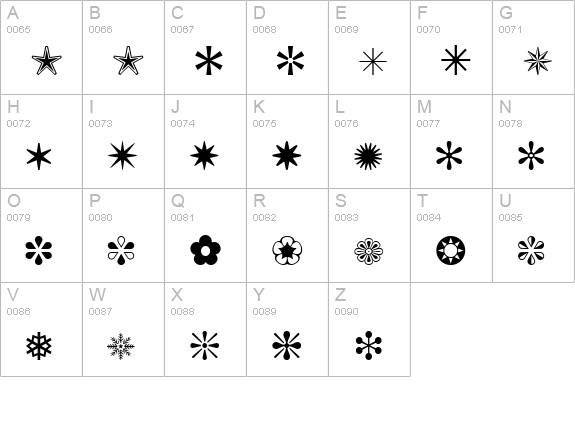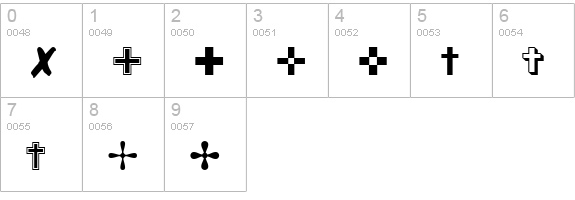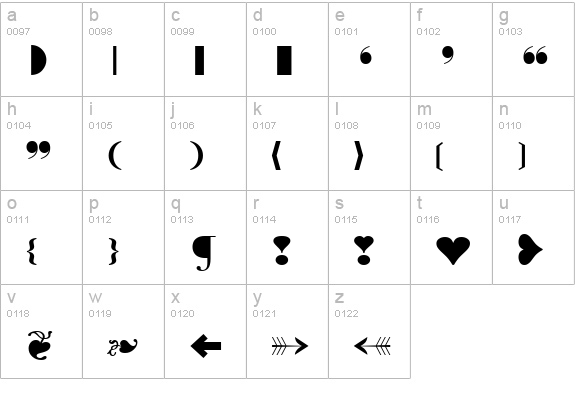
Iconic Symbols Ext Font Details
Iconic Symbols Ext font is a stunning and versatile typeface that is sure to catch the eye and elevate any design project. With its extensive collection of iconic symbols, this font allows you to effortlessly communicate ideas and concepts in a visually appealing way. Whether you are creating a logo, designing a website, or crafting a presentation, Iconic Symbols Ext font offers a wide range of symbols to choose from, making it a valuable asset for designers of all levels. This font is not only visually appealing, but it is also incredibly practical. The symbols included in Iconic Symbols Ext font cover a broad spectrum of categories, including technology, nature, transportation, and much more. No matter what message you want to convey, this font has the perfect symbol to complement your design. One of the most appealing aspects of Iconic Symbols Ext font is that it is free to download. You can easily access this font at FontsMarket.com, a reputable website that offers a vast collection of high-quality fonts. The fact that Iconic Symbols Ext font is freely available allows designers to access this valuable resource without any financial constraints. Not only does Iconic Symbols Ext font offer an extensive collection of symbols, but it also provides excellent legibility and clarity. Each symbol is meticulously crafted, ensuring that it is visually appealing while maintaining its readability. This font is perfect for both print and digital designs, allowing you to create stunning visuals across various mediums. In conclusion, Iconic Symbols Ext font is a must-have for any designer looking to enhance their projects with eye-catching symbols. With its extensive collection, practicality, and free availability, this font is a valuable tool that will undoubtedly elevate your designs to new heights. Download Iconic Symbols Ext font today at FontsMarket.com and unlock a world of possibilities for your design projects.